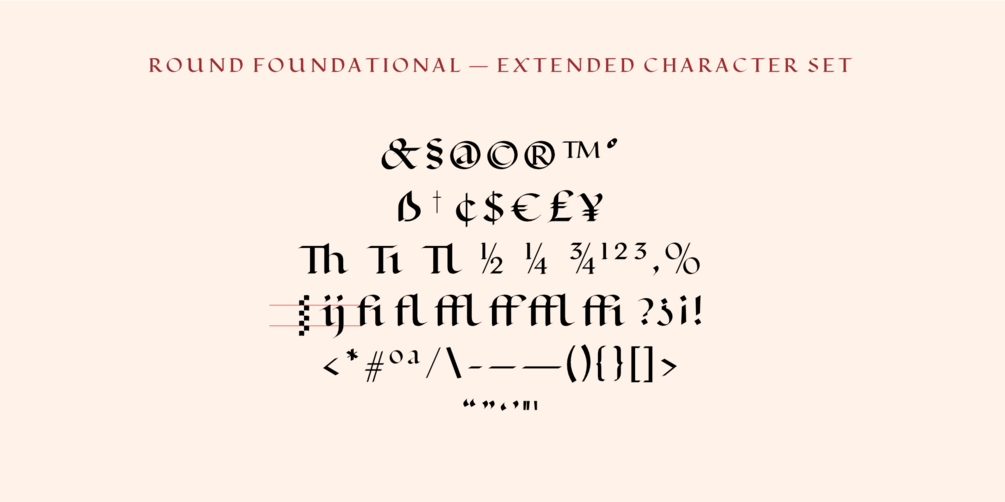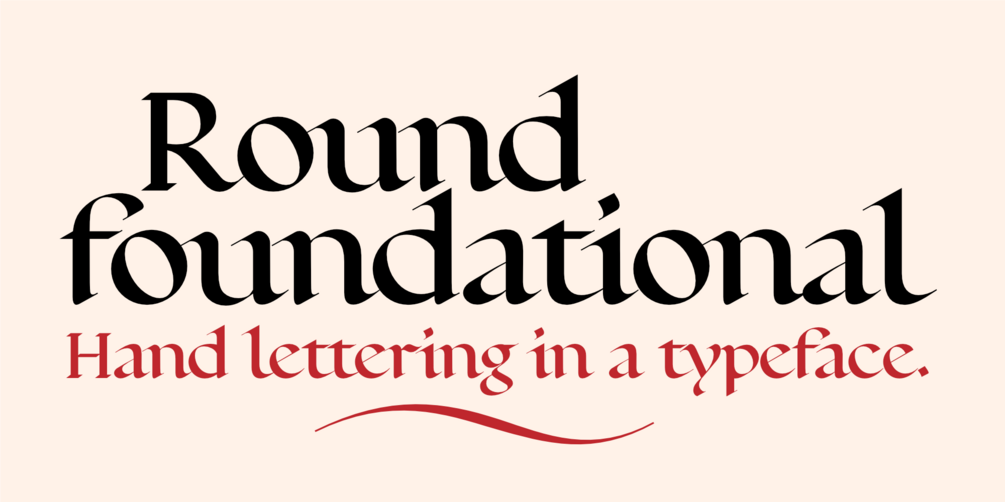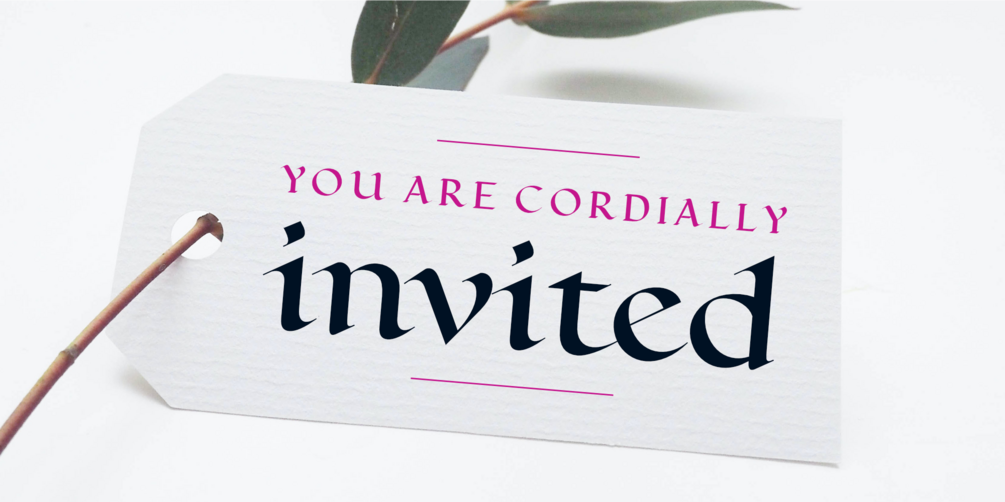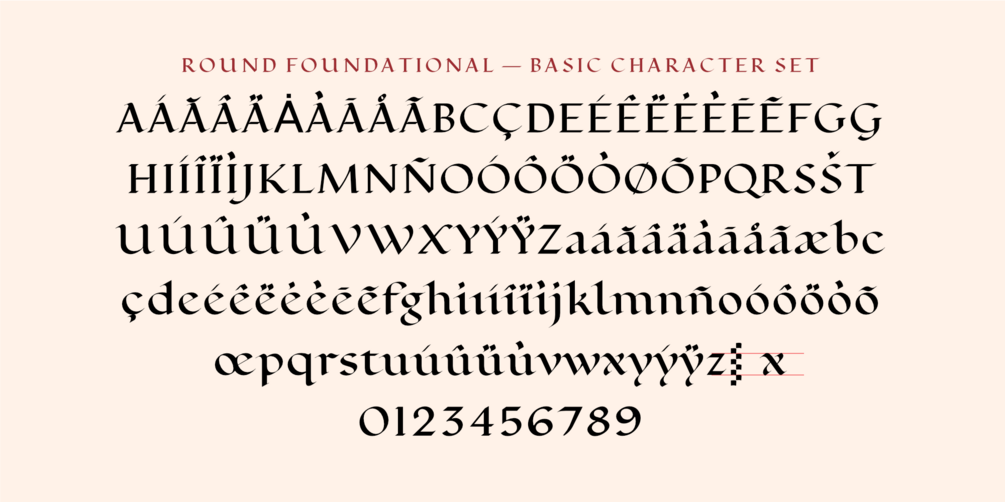
Round Foundational hand lettering in a typeface
The classic round foundational hand lettering typeface I learned in art school. Create that perfect card or invite with traditional hand lettering and all the confidence that your letters will be perfect every time.
I want to develop this typeface further by pushing an even more calligraphic style in the lettering. I love the sharpness but roundness in the foundational hand and wished I had studied it in more detail while I had the chance under the calligrapher John Smith (yes, his real name), author of The Art of Calligraphy.
Round Foundational is a beautifully drawn hand lettering font made digital and captured in a typeface for anyone to use. It is one of the basic styles of calligraphy that students should learn and is perfect for creating beautiful greetings cards, wedding invitations, certificates and official looking documents.
- 1 weight based on a four nib width
- Multi language support
- Ligatures to improve style
- Capital spacing to help create original look
- Alternative characters that allow customisation
The classic font weight for round foundational calligraphy